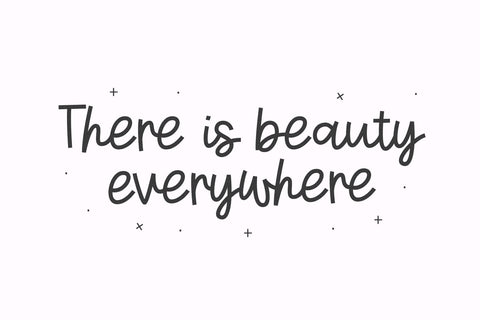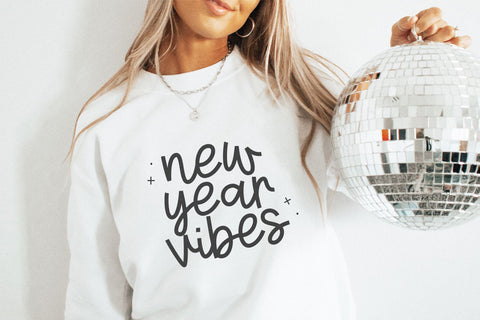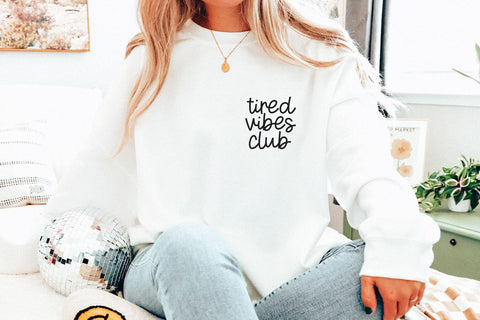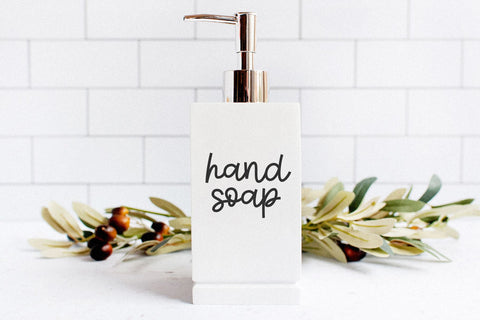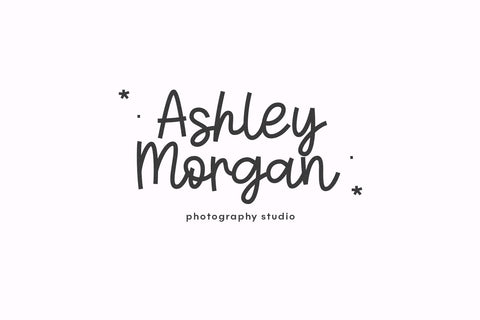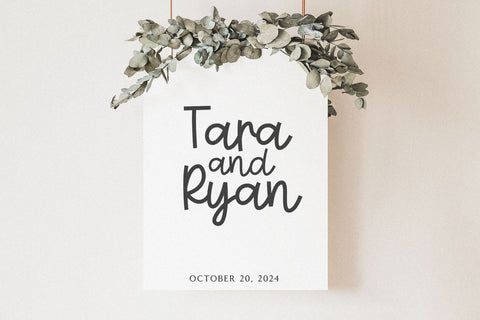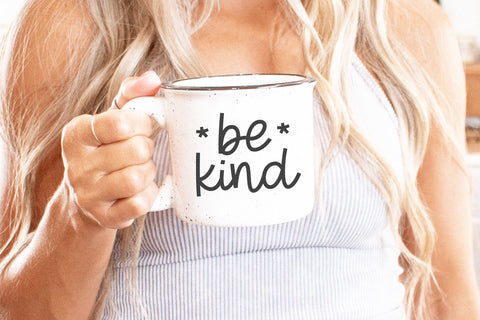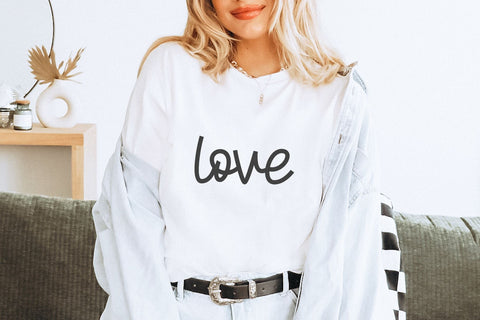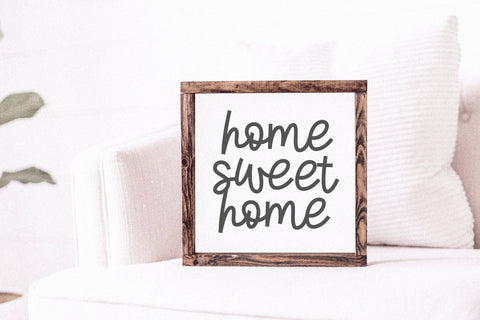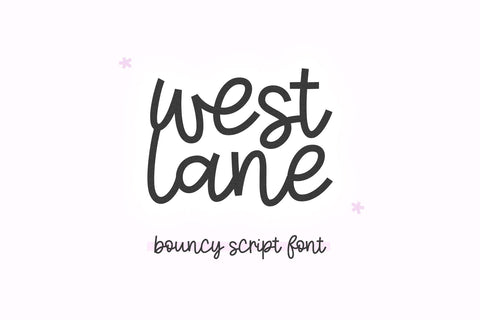
West Lane - Bouncy Script Font
West Lane is a modern script font.
This font is perfect for cricut projects, svg designs, wedding decor, shirts, logos, mugs and more!